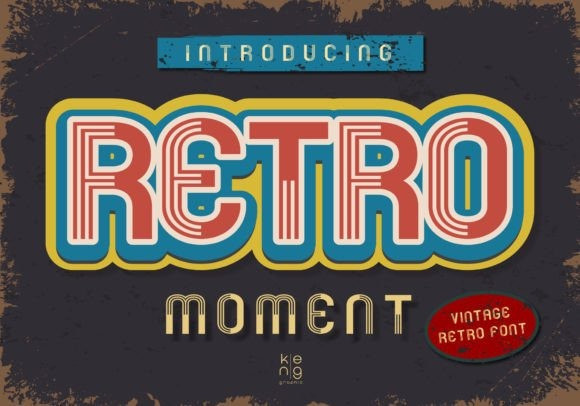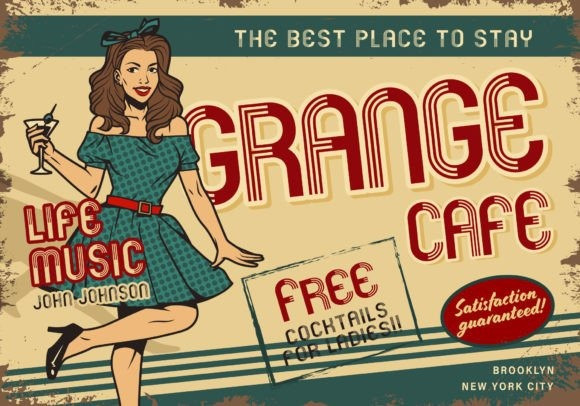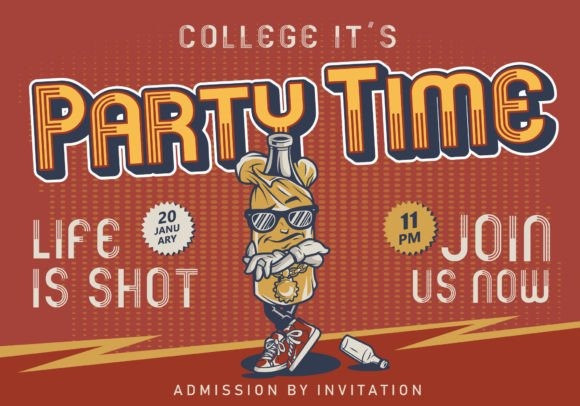
Retro Moment Font
Retro Moment is a clean vintage-style display font. Inspired by the retro typography of the 60s, anything written in this font is instantly recognizable and will grab attention. Use this display font to add a special retro touch to any design idea you can think of.